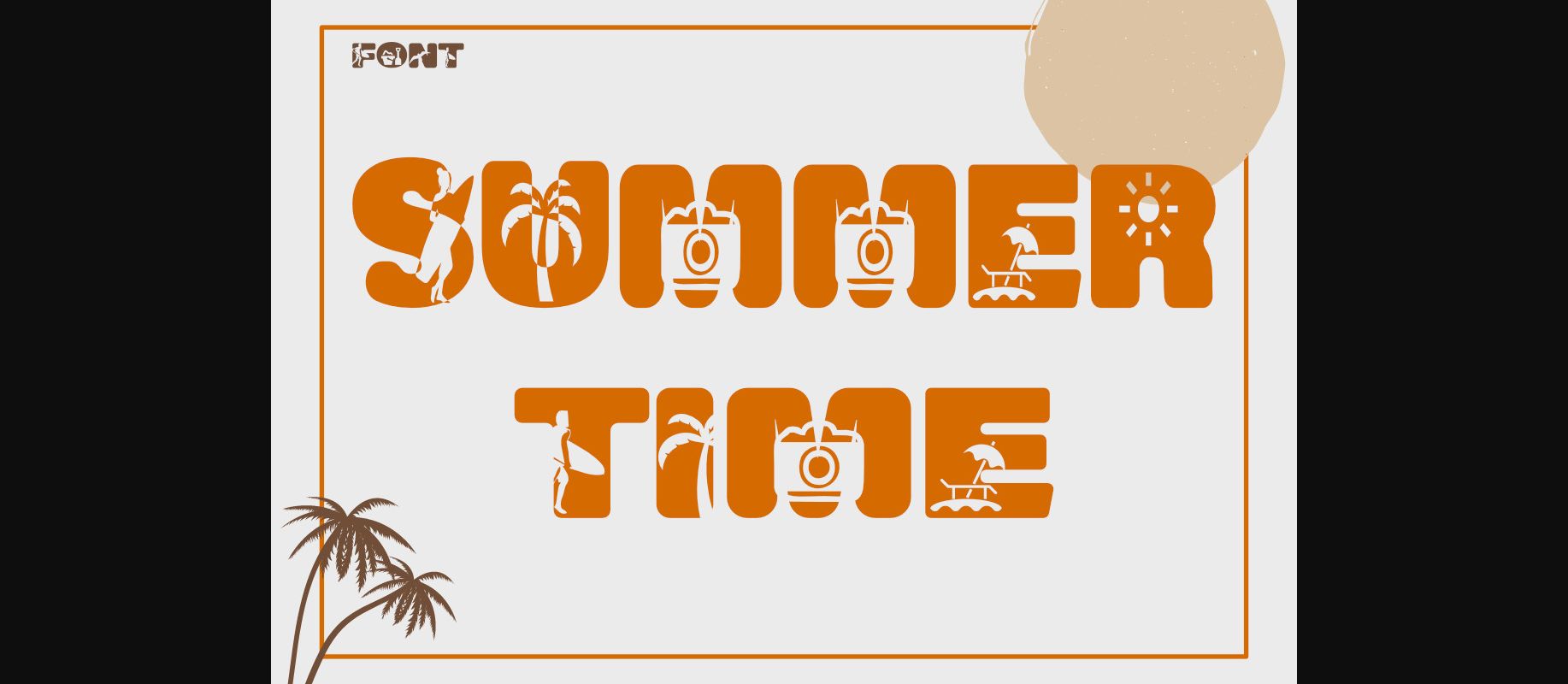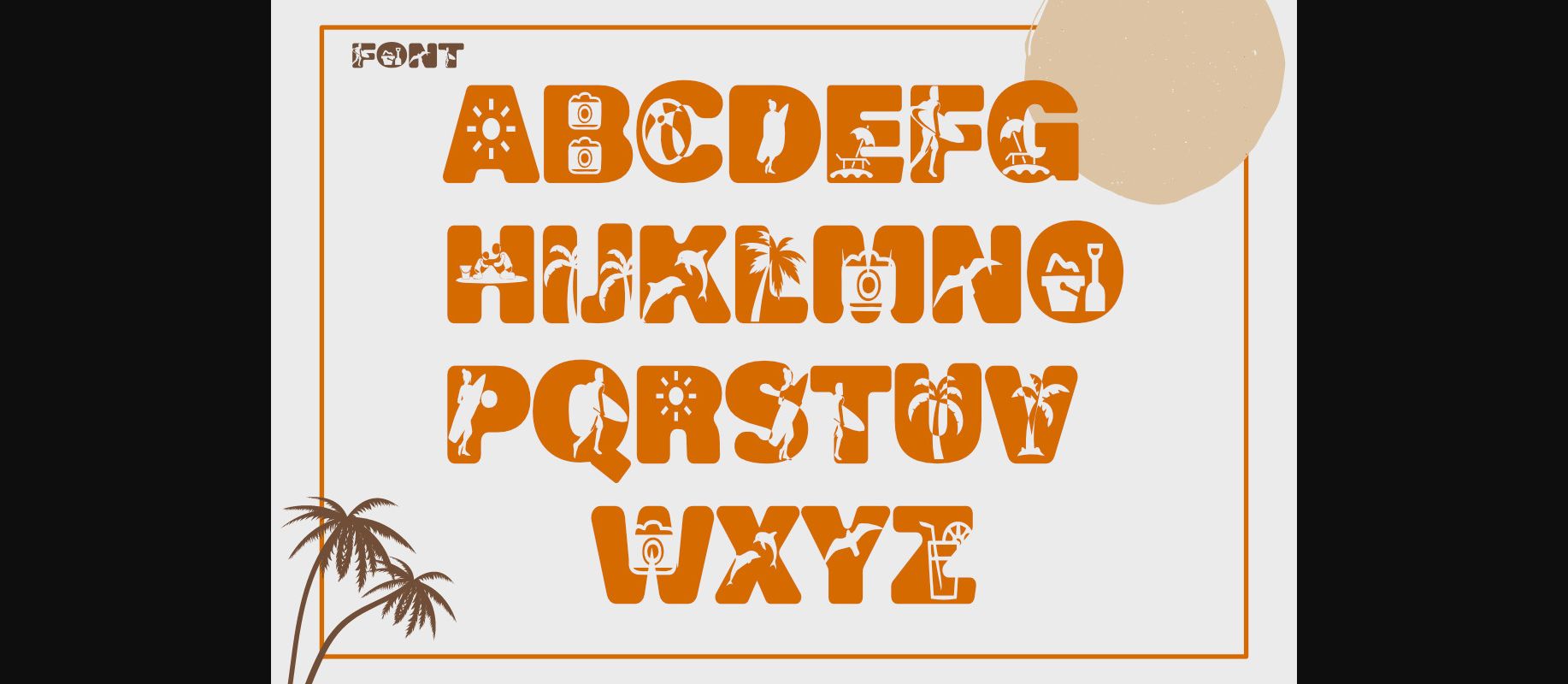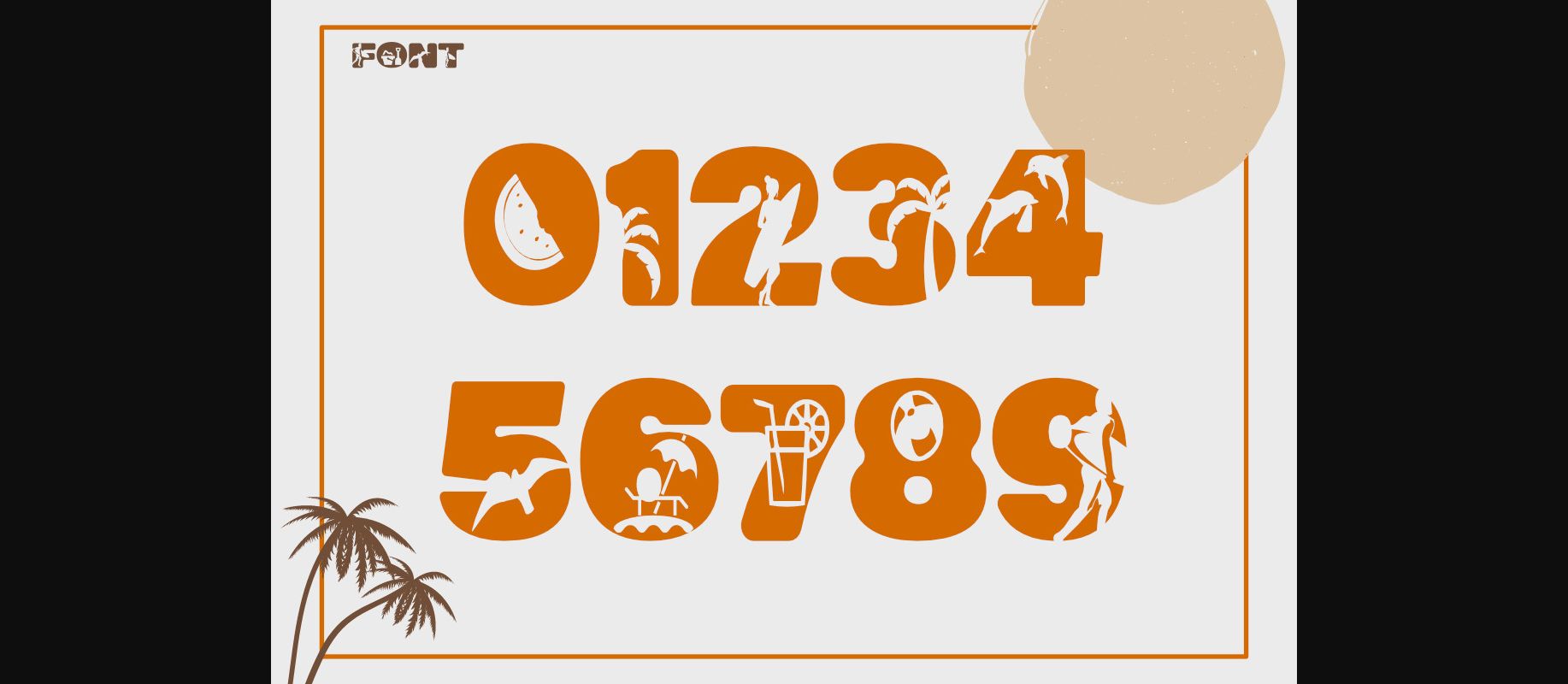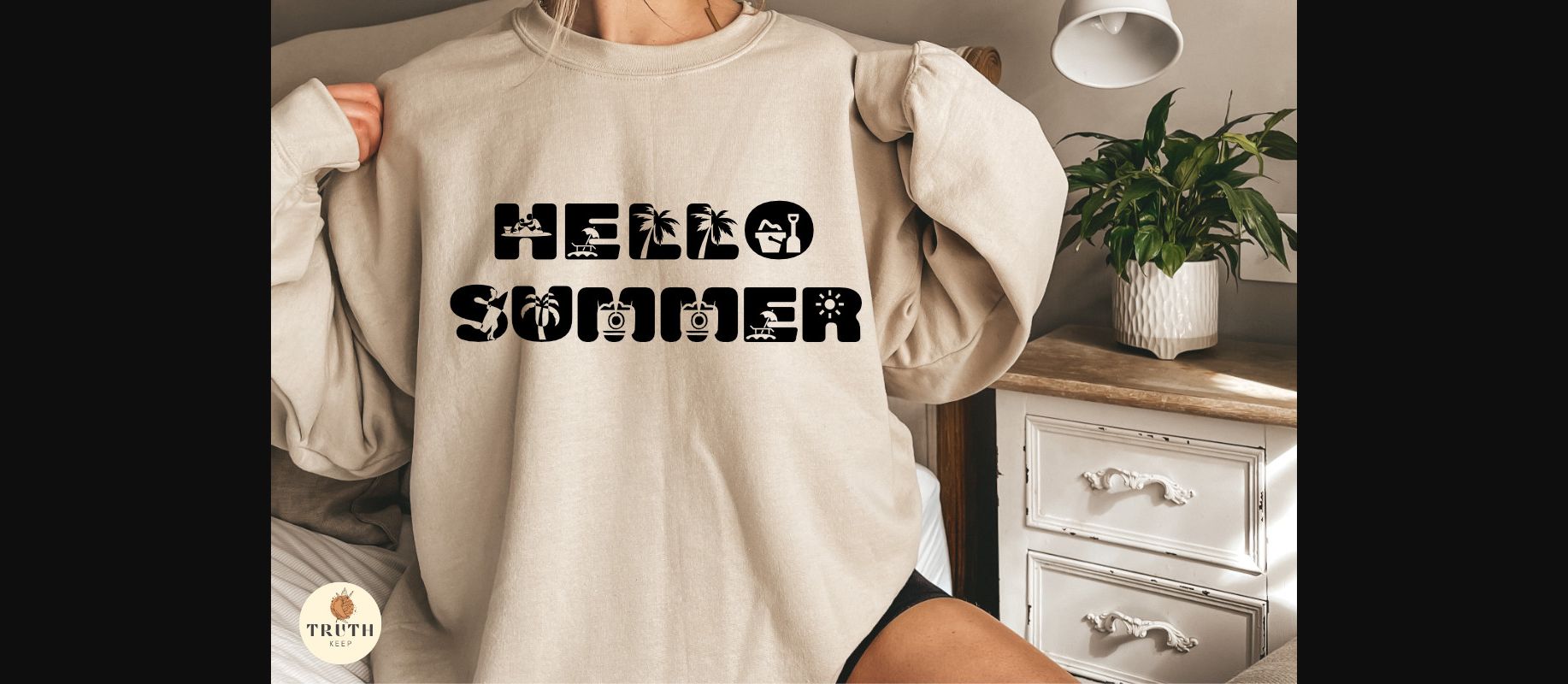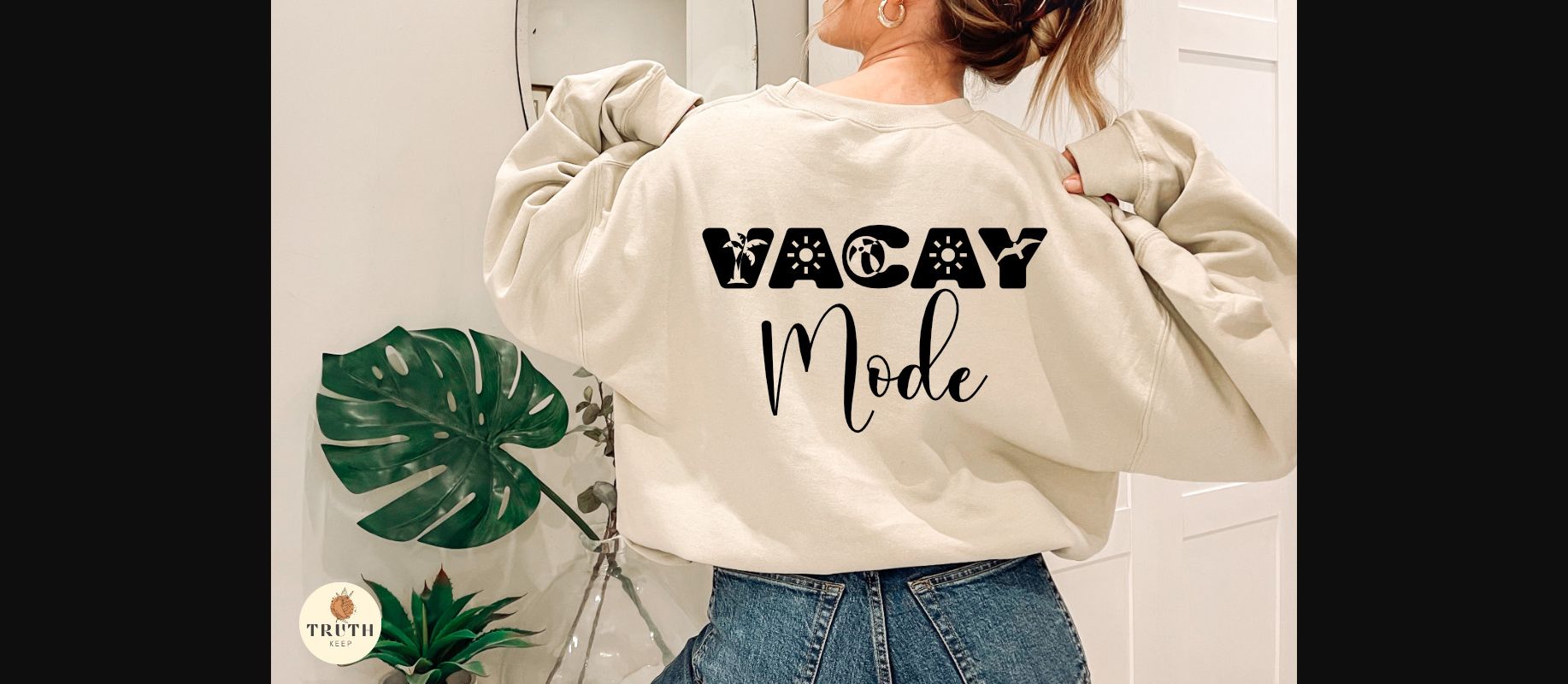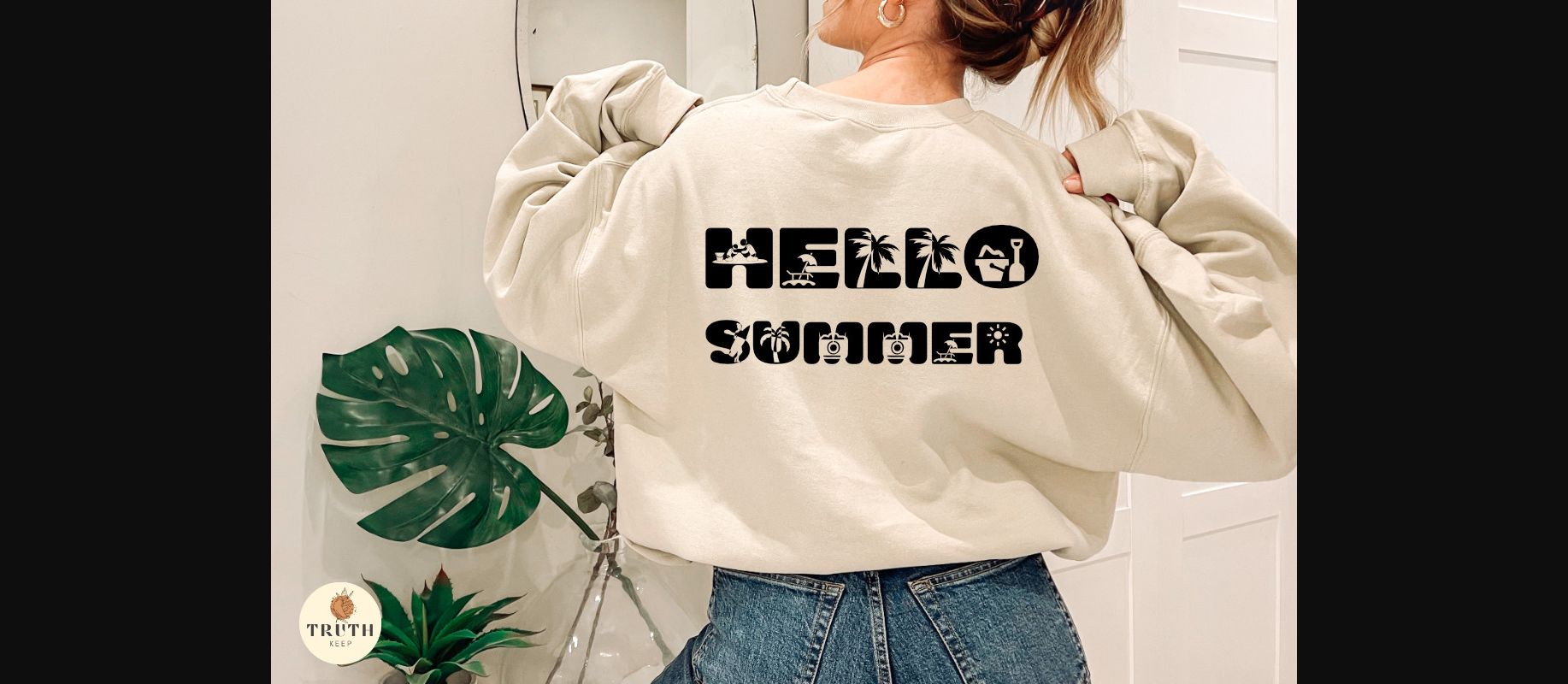
Summer Font
About Summer Font
Summer is a cool, incredibly cute, and bubbly decorative font. Add to each of your party invitations, gathering, or pretty much any design that requires a touch of youth and joy.